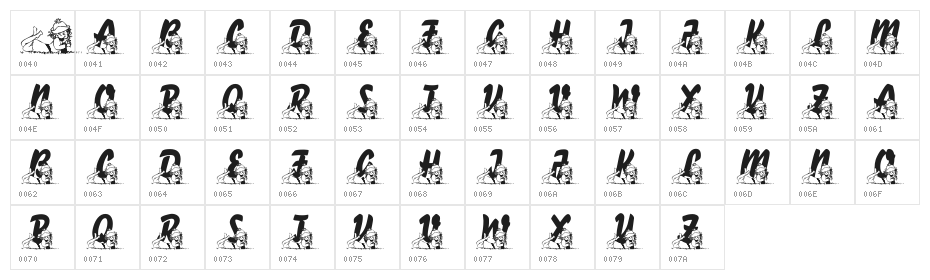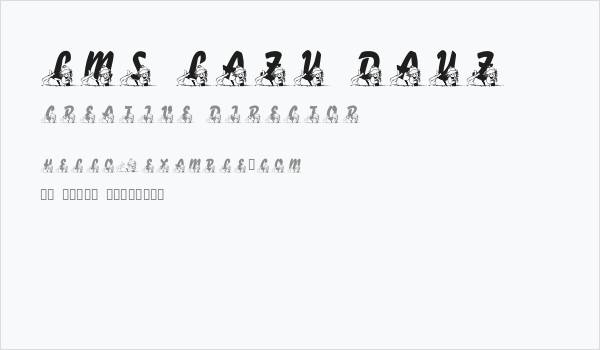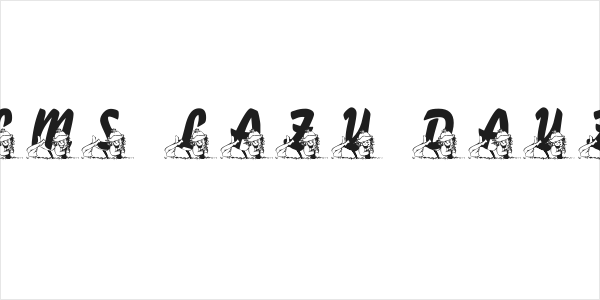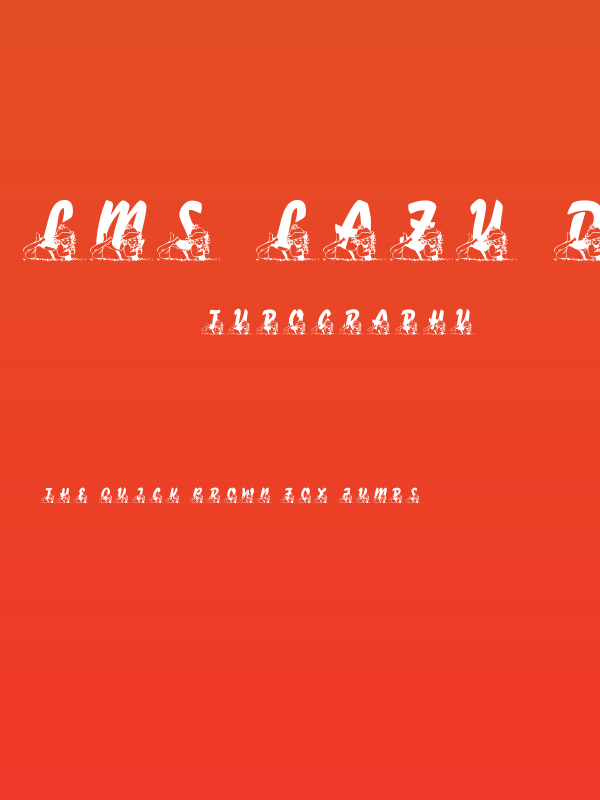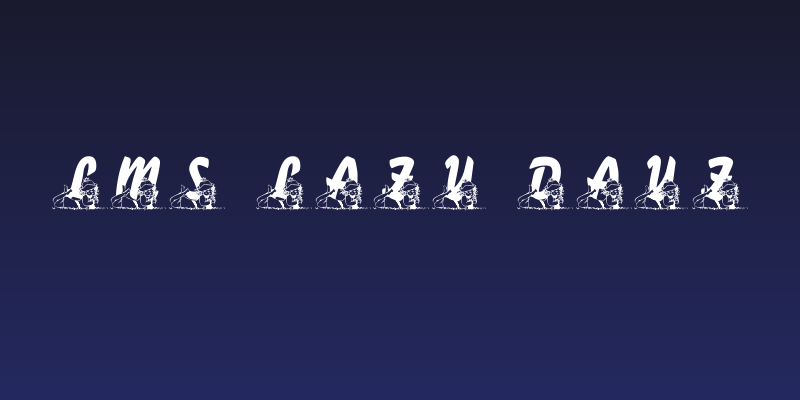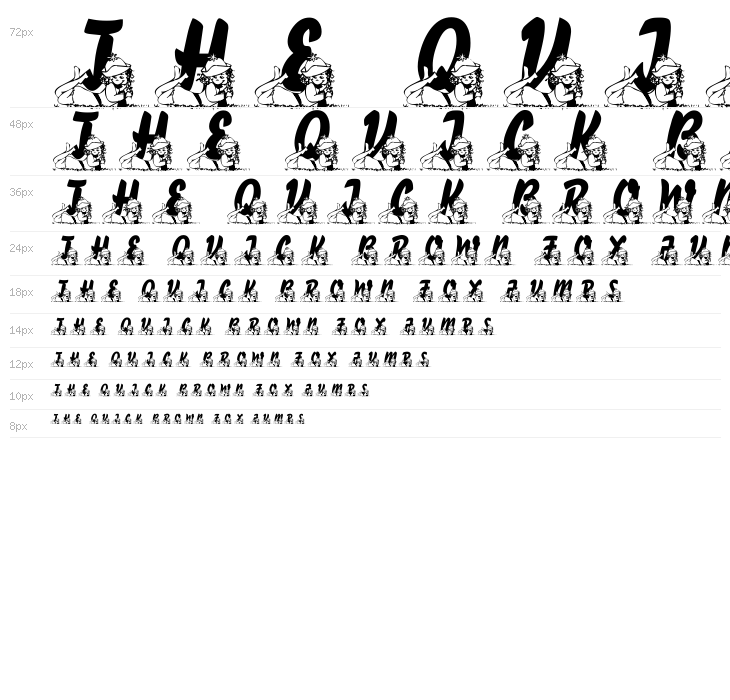
LMS Lazy Dayz Font
LMS Lazy Dayz Description
This font features a playful and whimsical design, incorporating a unique blend of script and decorative elements. Each character is accompanied by a small illustration of a relaxed figure, adding a distinctive and artistic touch. The letters are bold and slightly italicized, with smooth curves and a flowing style that suggests movement and creativity. The overall appearance is both casual and artistic, making it suitable for projects that require a fun and engaging visual element. The font maintains a consistent style across both uppercase and lowercase letters, as well as numbers and special characters, ensuring versatility in design applications.
Use CaseLogos, Headlines, Creative projects
Proposed ProjectsIdeal for children's books, playful branding, greeting cards, and creative posters.